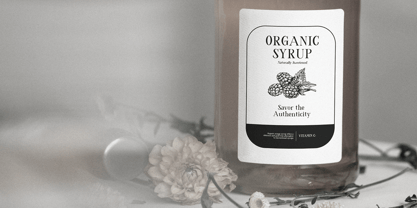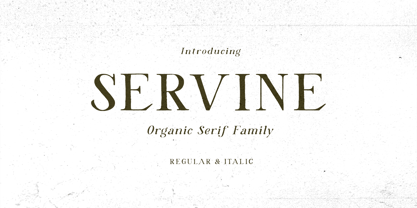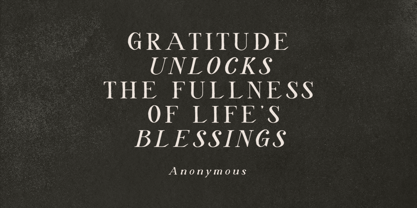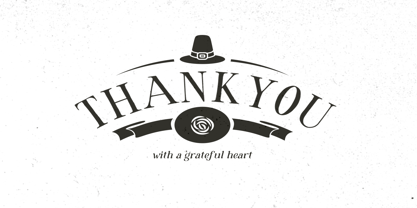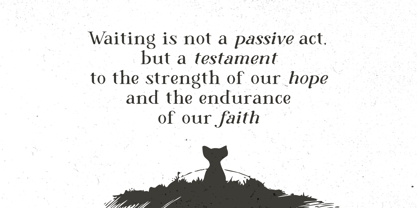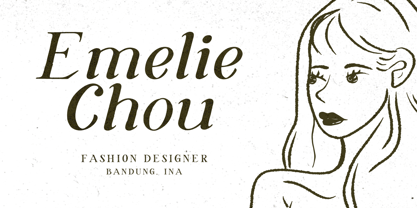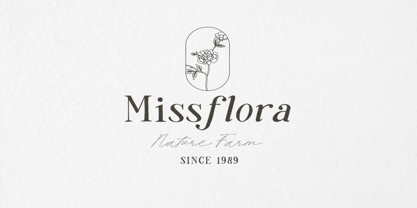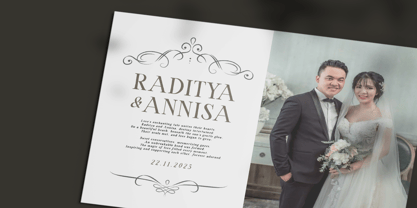
Servine
The Servine Font Family was designed by Sarid Ezra, Dzikrul Aulia and published by Bale Type. Servine contains 2 styles. More about this family
Servine is an organic serif font family that contains regular and italic style. With rough and natural appeal, you can make your project looks more handmade and rustic. You can use this font for any purposes such as quotes, wedding invitation, apothecary label, or logotype. This font also support multi language!